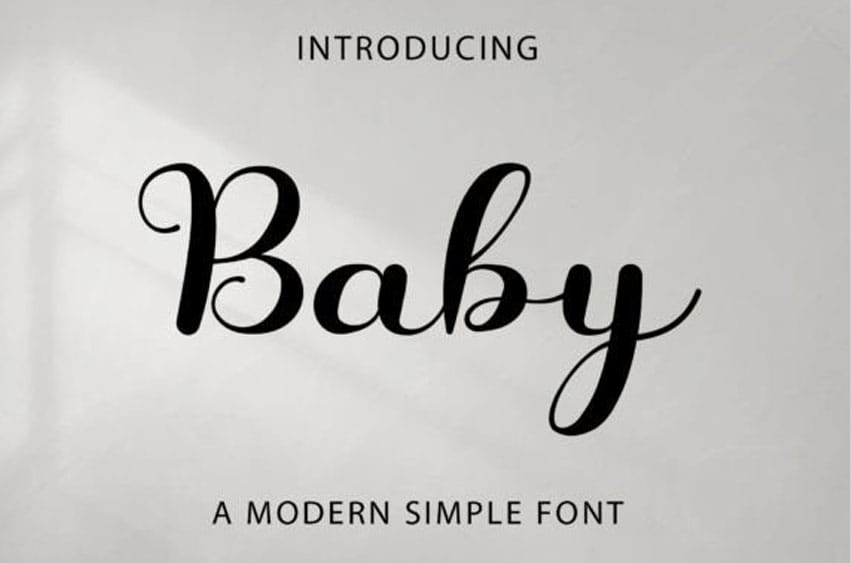
Baby Simple Font is a stylish and incredibly elegant decorative handwritten font. It looks stunning on wedding invitations, thank you cards, quotes, greeting cards, logos, business cards, and every other design that needs a handwritten touch.